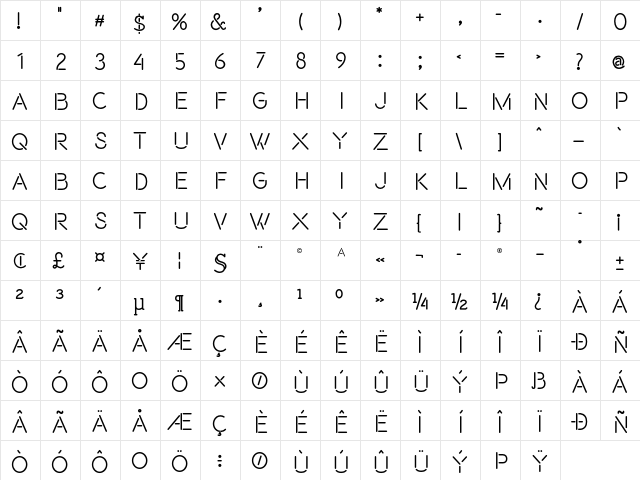
Beon Medium Font Preview
Beon Medium
Beon Medium Font Details
| Foundry | BSozoo |
| Designer | BSozoo |
Design Context for Beon Typeface
Beon is a composed and adaptable typeface that performs quietly and consistently across a wide range of design contexts.